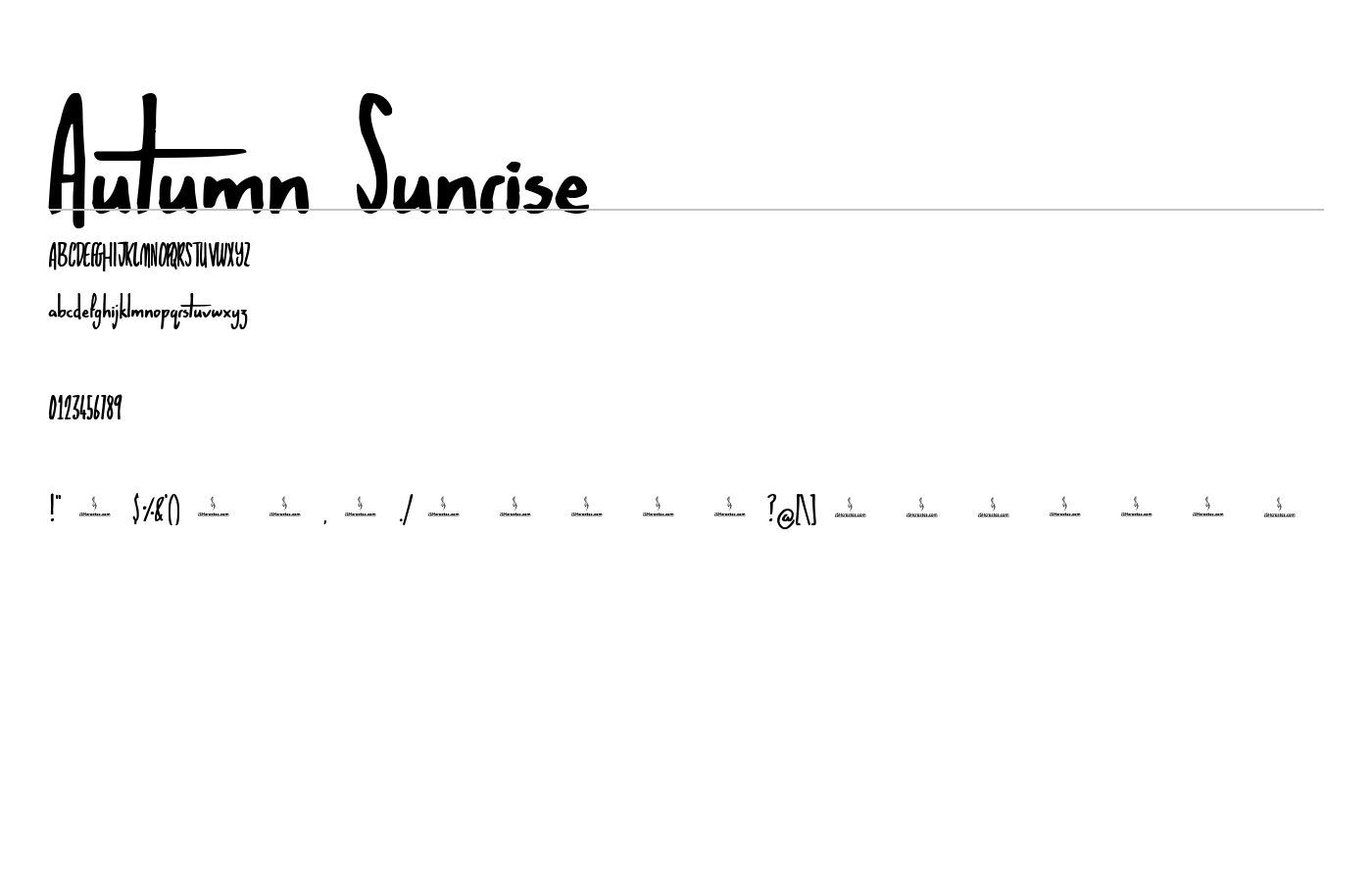
Autumn Sunrise is a tall, narrow handwritten font with a casual and modern look. Its slender letterforms and slightly uneven strokes give it a friendly, approachable style ideal for creative projects, invitations, and branding that seek a personal, artistic touch. This font works best in headlines or short texts where its distinctive character can truly shine.
Autumn Sunrise Font
About Autumn Sunrise Font
| Font family | Autumn Sunrise Font |
| Designer | Jonathan S Harris |